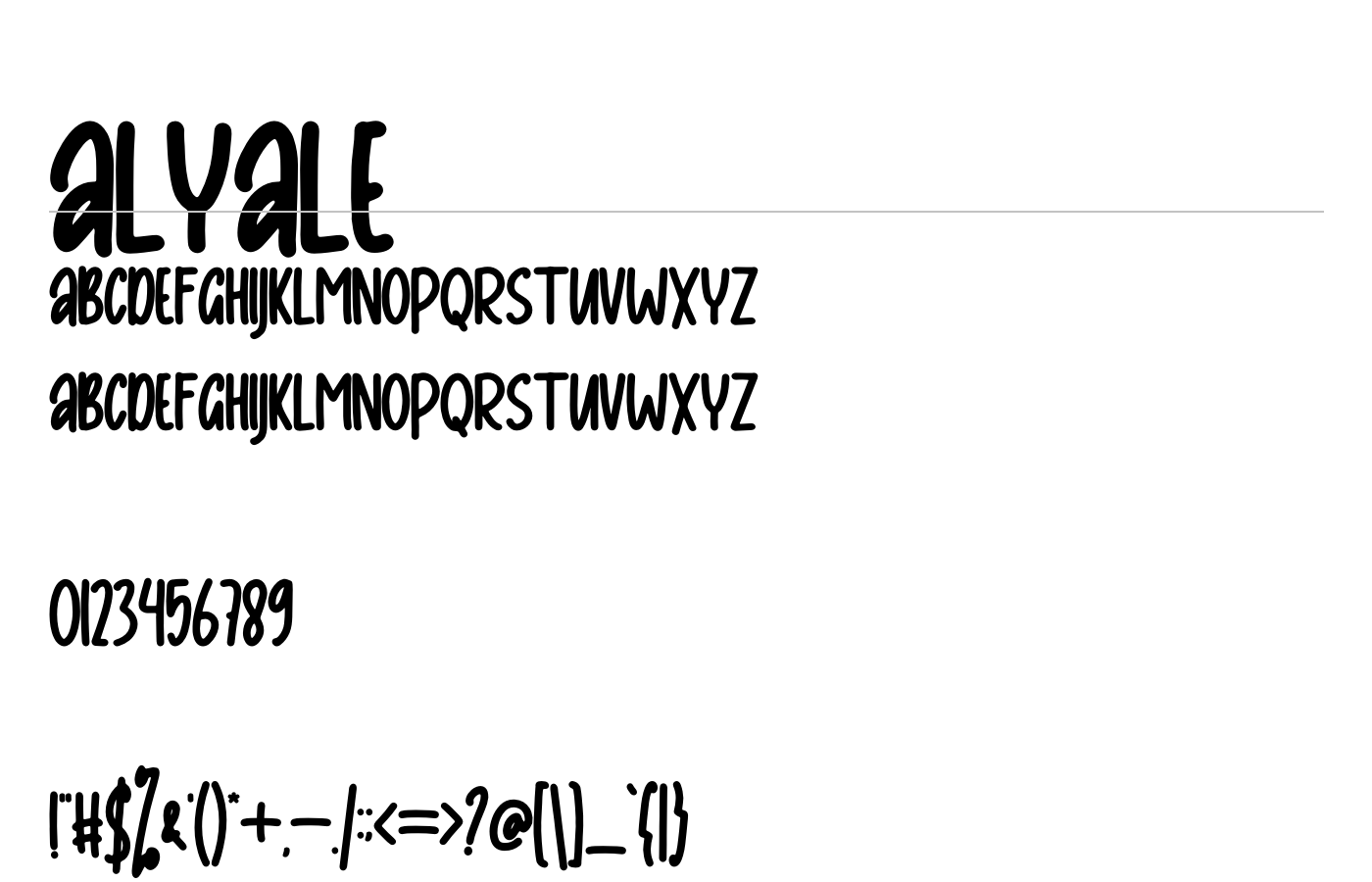
Alyale is a playful handwritten sans serif font with a casual, friendly vibe. Its tall, rounded letterforms and slightly irregular shapes give it an approachable, informal feel, making it perfect for fun branding, children’s products, or creative projects that want a personal touch. This font works well for headlines, logos, and eye-catching displays where a warm and lively personality is desired.
Alyale Font
About Alyale Font